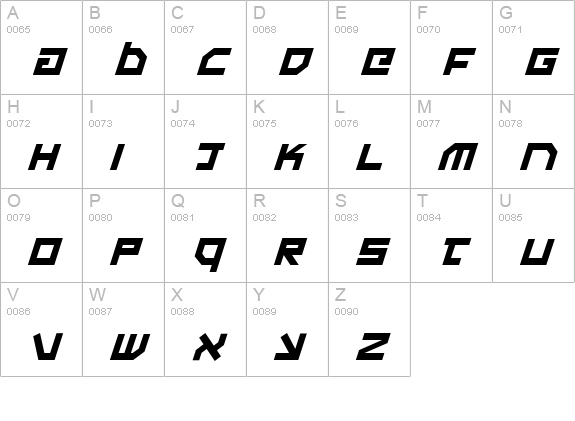
Uno Estado Italic is a distinctive, italic variant in the Uno typeface family \xE2\x80\x94 well suited to design and typography projects.
Uno Estado Italic is a sleek and modern font that exudes elegance and sophistication. Its distinctive italic style adds a touch of flair to any design project, making it ideal for creative ventures seeking a touch of uniqueness. This font is versatile and can be used for a wide range of applications, from branding to editorial design. The best part? Uno Estado Italic is available for free download at FontsMarket.com, making it accessible to all designers and creatives looking to elevate their work with a touch of sophistication. Don't miss out on this opportunity to add a touch of style to your projects with Uno Estado Italic. Download it today and let your creativity flourish!